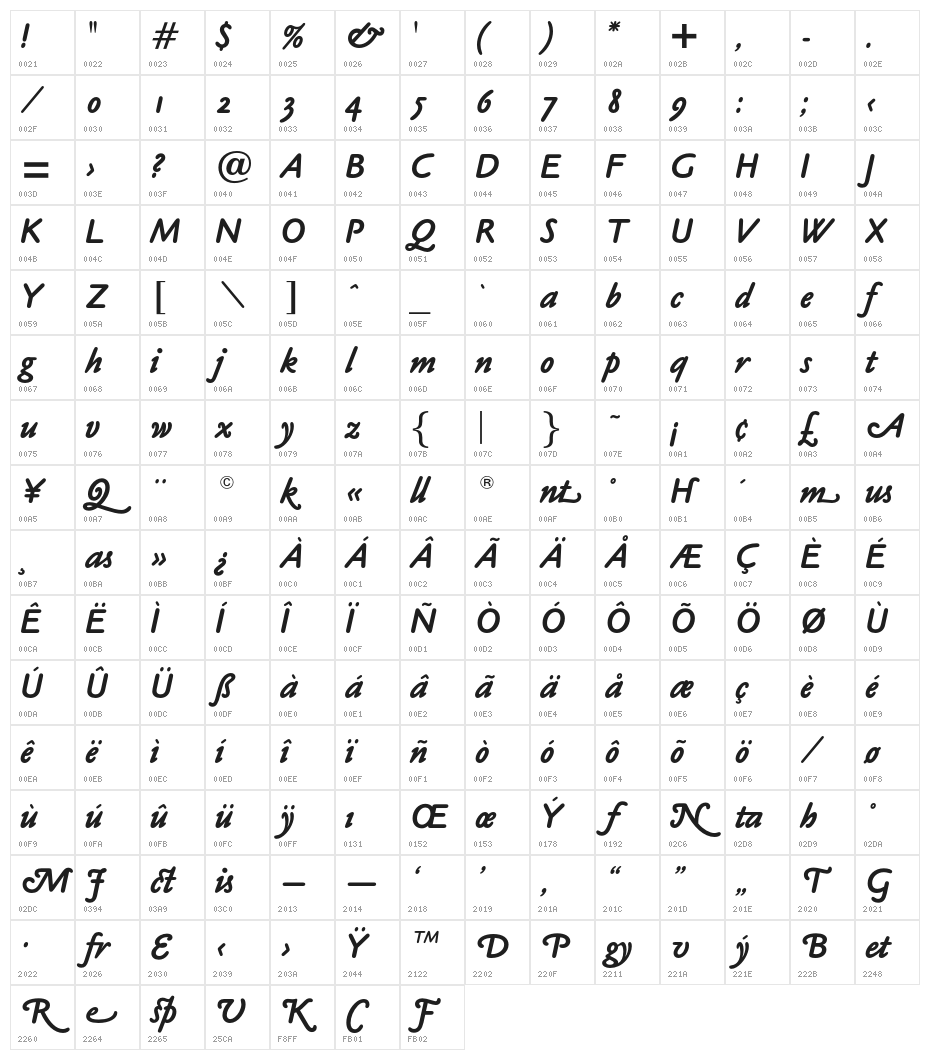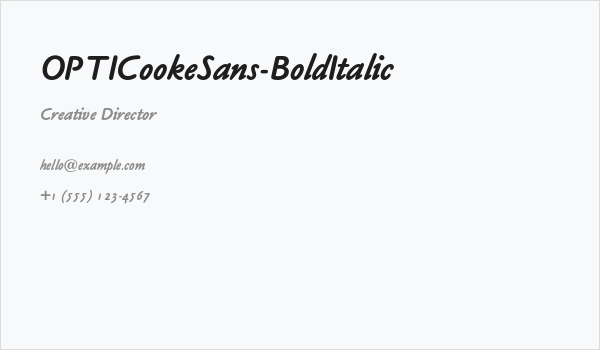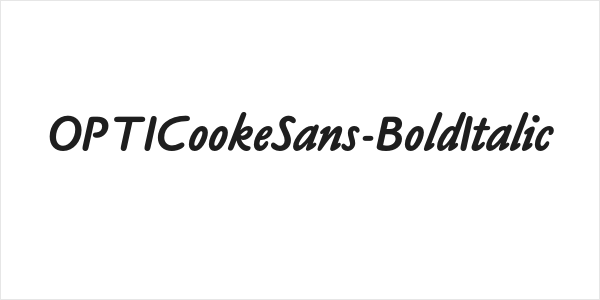
OPTICookeSans-BoldItalic Font
OPTICookeSans-BoldItalic Description
This font exhibits a bold and italicized style with a smooth, flowing appearance. The uppercase letters are slightly slanted, giving a dynamic and energetic feel. The lowercase letters maintain a consistent stroke width, contributing to a cohesive look. Numerals are clear and legible, with a slight slant that matches the overall italic style. Special characters are well-integrated, maintaining the same bold and italic characteristics. The font's design is both modern and expressive, making it suitable for a variety of creative applications.
| Use Case | Headlines, Logos, Creative design |
| Proposed Projects | Ideal for branding, advertising, headlines, and creative design projects. |